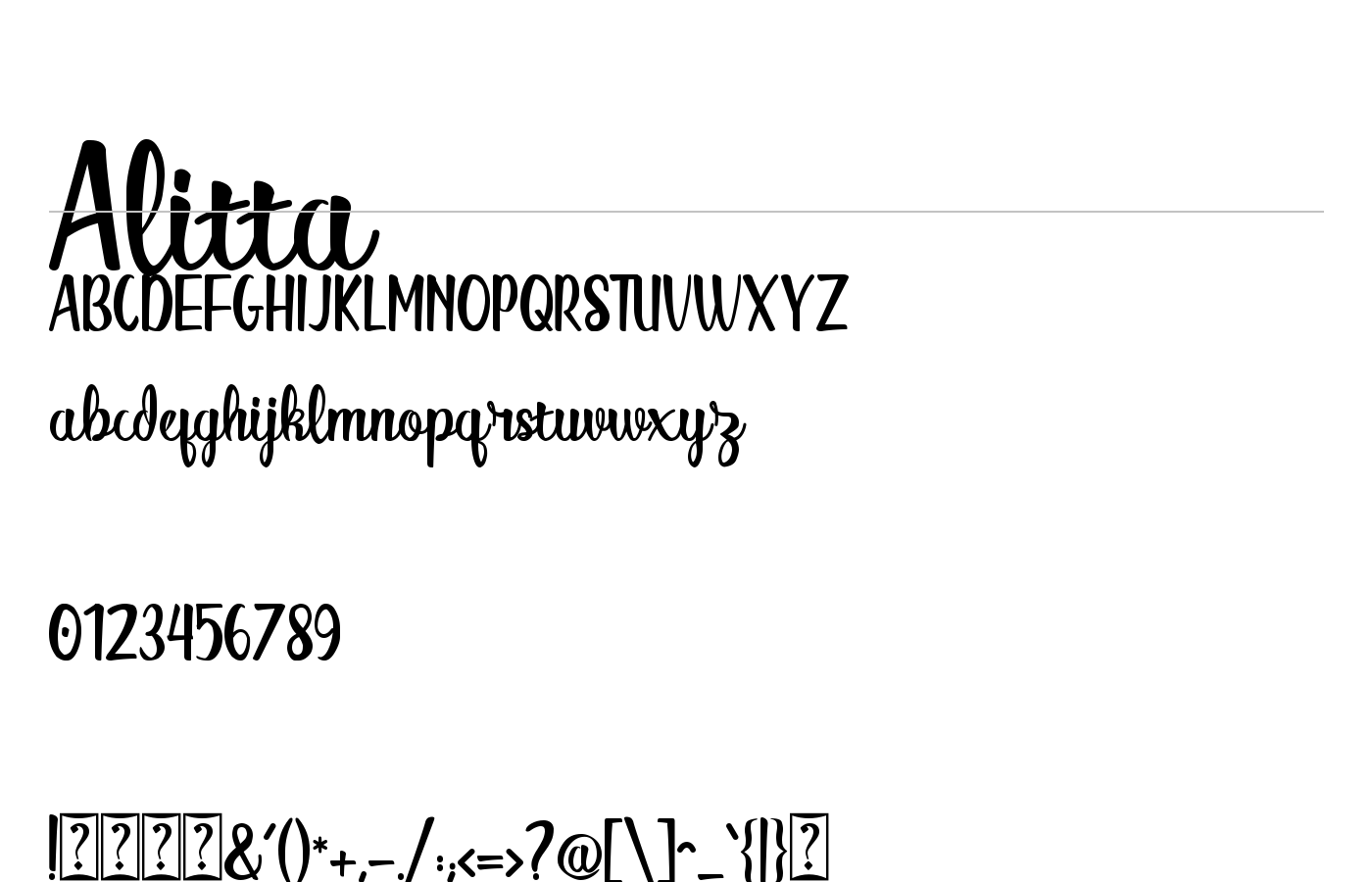
Alitta is a playful, handwritten script font with a lively and casual character, featuring tall, narrow letterforms with a smooth, rounded stroke style. Its mix of uppercase with simple, flowing lowercase and rounded numerals makes it ideal for fun branding, invitations, and creative projects that need a friendly, approachable feel. This font shines in informal contexts where warmth and personality are key.
Alitta Font
About Alitta Font
| Font family | Alitta Font |
| Designer | Omotu Studio 2019 |